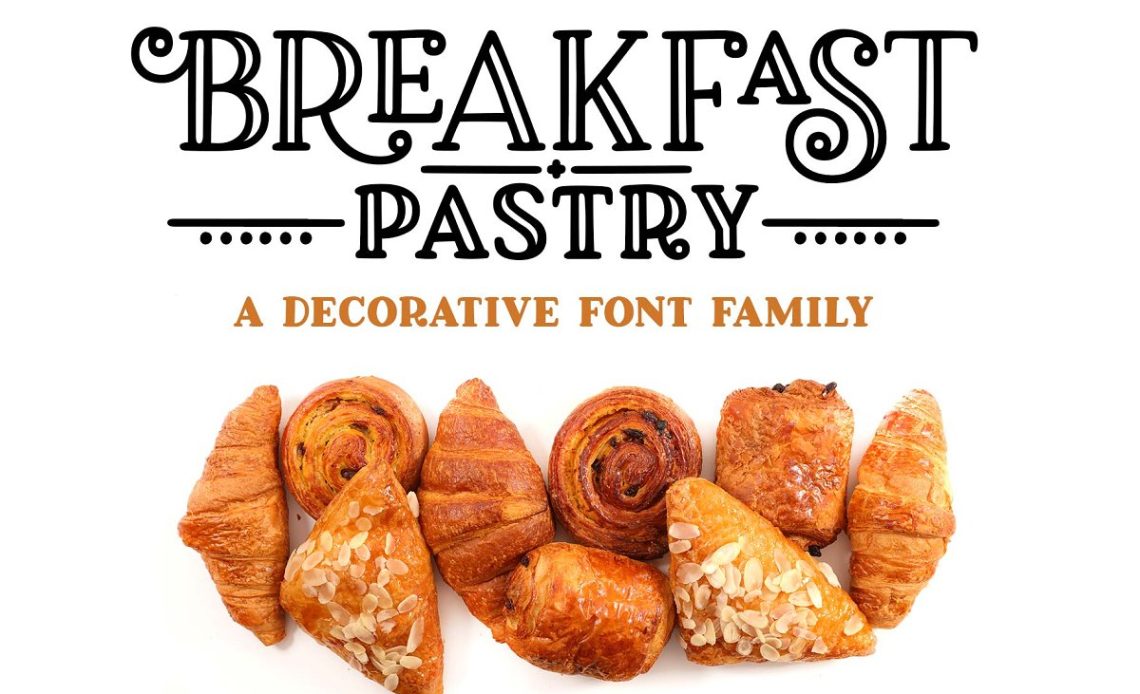
Introducing Breakfast Pastry, the stunning serif font created by Missy Meyer. This decorative font is perfect for any occasion, but it is especially suited for weddings. Breakfast Pastry is a font that has been meticulously crafted with fun swirls, curls, and balls on every letter. This eye-catching font is sure to draw attention and bring life to any design.
Breakfast Pastry comes in three different versions, all with over 700 glyphs and 300 extended Latin characters, ensuring language support. But that's not all! With over 230 extras, including alternates, ligatures, catchwords, small caps, and ornaments, you'll have everything you need to make your designs stand out.